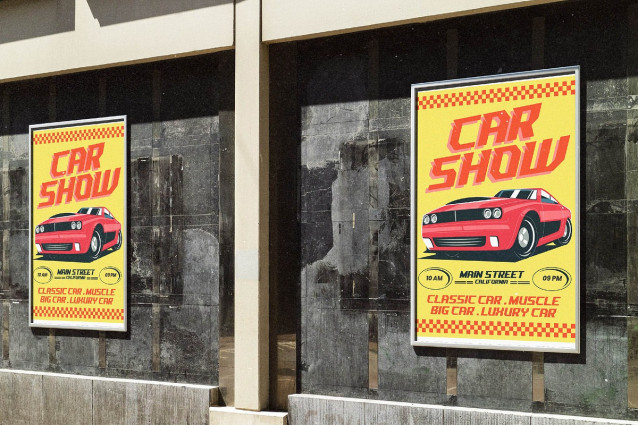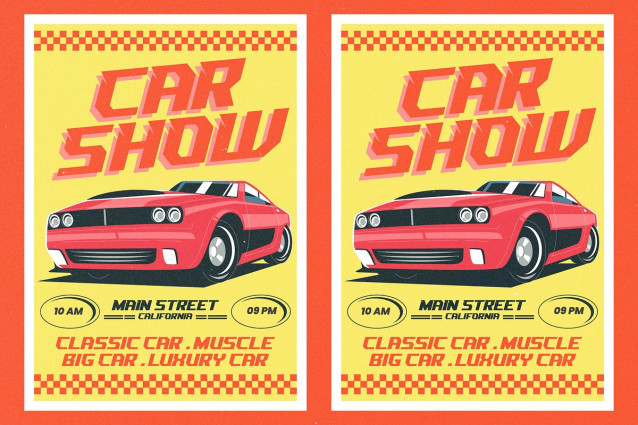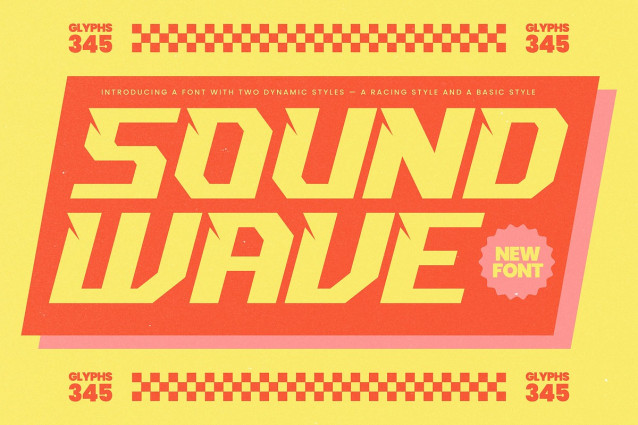
Sound Wave Font
Sound Wave Font a high-octane display font built for brands that live in the fast lane. This typeface delivers a visceral sense of speed and precision, making it the perfect driver for your next visual identity.Born on the asphalt and refined for the digital age, the inspiration comes from the rhythmic pulse of engine vibrations and the sleek aerodynamic lines of professional racing machines. Every character is slanted for maximum momentum, echoing the intensity of a photo finish.With its heavy-duty construction, this modern display typeface excels through its racing typography and high-impact display presence. It functions as a powerful editorial font that ensures a lasting branding impact across every high-performance medium.
Perfectly capturing the current modern display trend, this set offers the kind of editorial display fonts that define character-driven typography. It bridges the gap between retro racing aesthetics and the bold, clean lines of futuristic sports design.Its versatility makes it the gold standard for logo design, branding, and professional editorial work. From durable packaging to specialized high-speed wedding events or cutting-edge fashion lookbooks, this font powers through every creative challenge.The package is rounded out with a suite of functional ligatures and unique alternates for custom styling. While designed without traditional swashes to maintain its rigid speed, the full multilingual support and wide range of international characters make it ready for a global circuit.